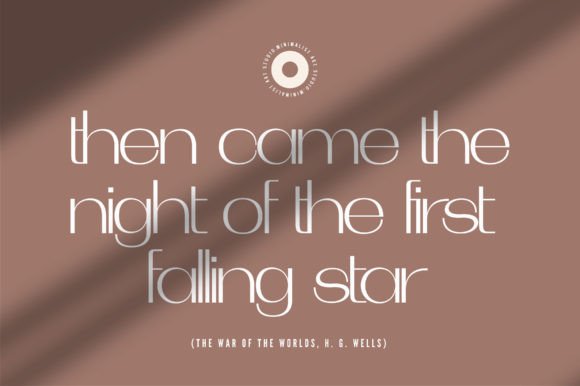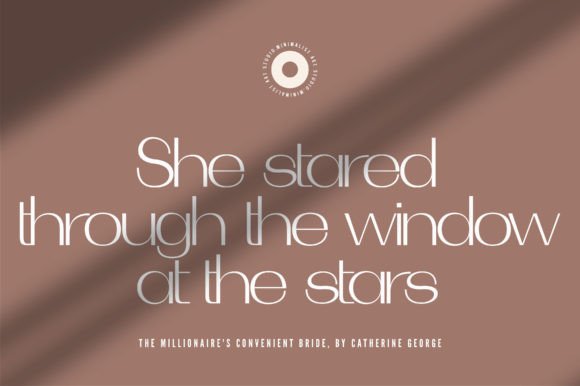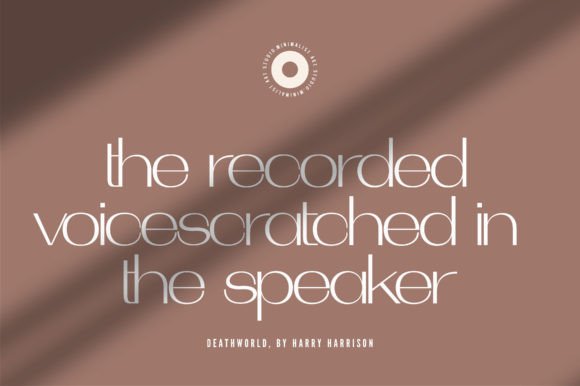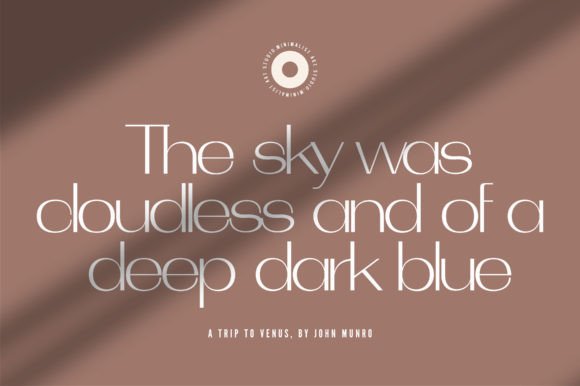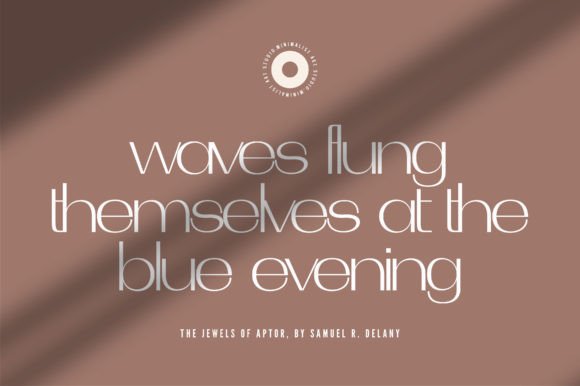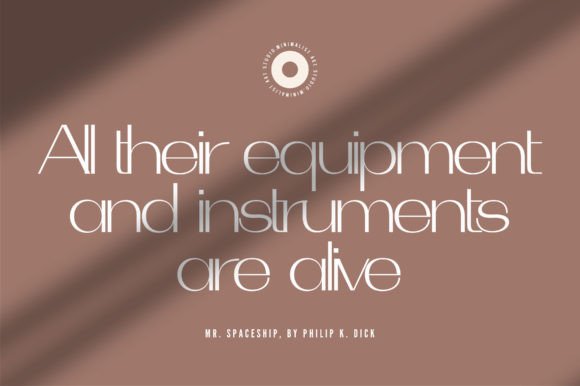
Introducing Couna Font: The Epitome of Minimalist Elegance
In the realm of typography, few typefaces manage to strike a balance between simplicity and sophistication as effortlessly as Couna Font. This sans serif typeface has emerged as a beacon of minimalist elegance, offering designers and crafters a refined and understated design solution that does not compromise on style. With its clean lines and simple yet sophisticated shapes, Couna Font is poised to become the go-to choice for a wide array of design applications, from logos and websites to print layouts and beyond.
The Essence of Minimalist Elegance
Minimalism in design is not just about stripping away elements to achieve a bare look; it’s about creating a sense of clarity and focus. Couna Font embodies this philosophy by offering a typeface that is both clean and elegant. Its sans serif design eliminates unnecessary embellishments, allowing the inherent beauty of the letters to shine through. This makes Couna incredibly versatile, capable of adapting to various design contexts without ever appearing out of place.
Versatility at Its Core
One of the standout features of Couna Font is its versatility. Whether you’re working on a corporate brand identity, a personal project, or a digital platform, Couna seamlessly integrates into any design framework. For logo designs, its simplicity and elegance ensure that the brand name takes center stage, making it memorable and impactful. In website design, Couna enhances readability and user experience, providing a clean and modern aesthetic that appeals to a wide audience. For print layouts, such as brochures, magazines, and business cards, Couna brings a touch of sophistication and professionalism.
Couna in Design Applications
The adaptability of Couna Font can be attributed to its well-crafted design elements. Here are a few ways Couna can elevate your design projects:
- Logo Design: Couna’s unique blend of simplicity and elegance makes it an excellent choice for logos. Its clean lines ensure that the logo is scalable and versatile, suitable for various mediums.
- Website Design: In digital design, Couna enhances user experience with its readability and modern appeal. It’s perfect for headings, body text, and even interface elements, ensuring a cohesive and engaging digital presence.
- Print Layouts: For print materials, Couna brings a level of sophistication that’s hard to achieve with more ornate typefaces. Its understated elegance ensures that the content takes center stage while providing a visually appealing framework.
Why Choose Couna Font?
Couna Font stands out in the crowded world of typography for several reasons:
- Timeless Appeal: Couna’s minimalist design ensures that it won’t go out of style anytime soon. Its timeless appeal makes it a wise investment for designers and brands looking for a long-term design solution.
- Ease of Use: Despite its sophisticated look, Couna is incredibly easy to use, even for those with limited design experience. Its clear and legible design makes it accessible to a wide range of users.
- High Versatility: Whether digital or print, Couna adapts effortlessly to different mediums and design contexts, making it a highly versatile addition to any designer’s toolkit.
Couna Font represents a significant advancement in typography, offering a beautiful blend of minimalist elegance and versatility. Its clean lines, simple shapes, and sophisticated appeal make it an ideal choice for designers and crafters seeking to elevate their projects with a touch of refinement and style. Whether you’re creating a brand identity, designing a website, or crafting a print layout, Couna Font is your gateway to achieving a timeless and polished look.